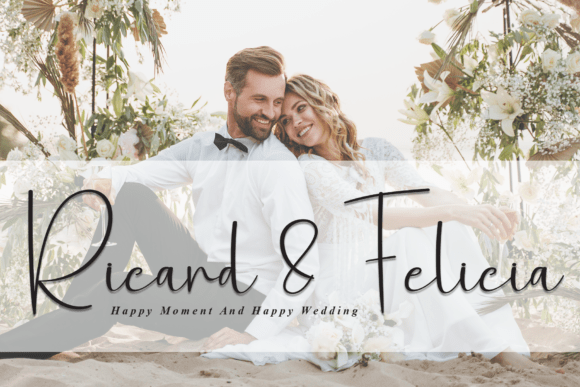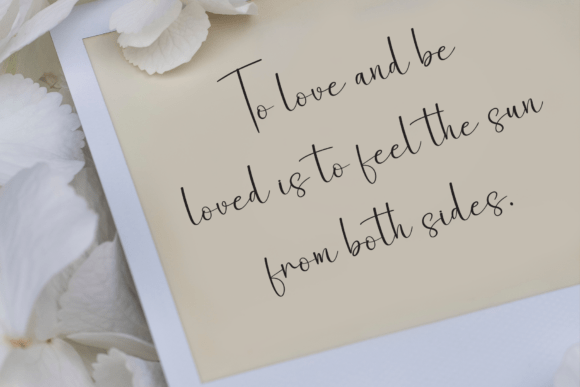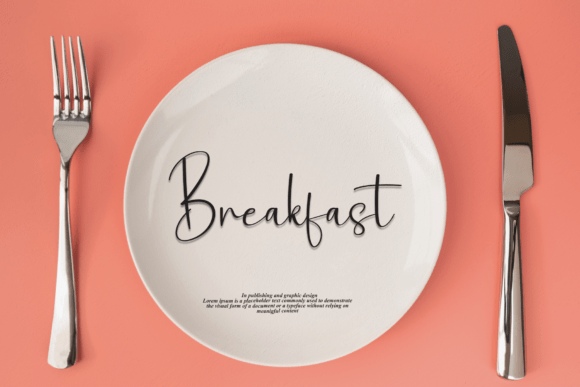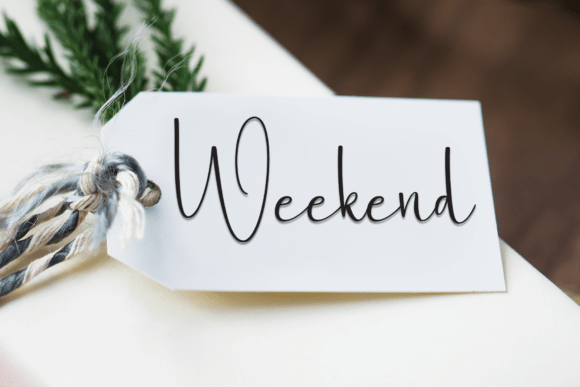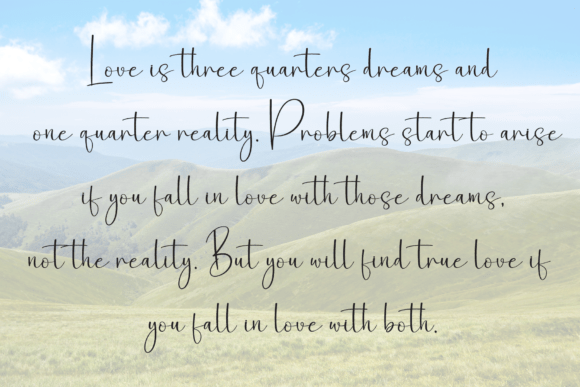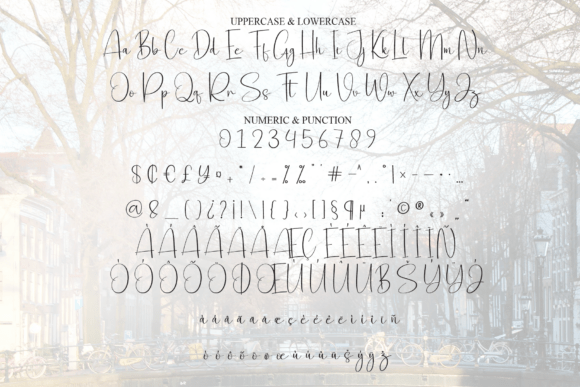
Introducing the Beautiful Amsterdam Font: Elevate Your Designs with Elegance and Charm
In the world of typography, few fonts capture the essence of elegance and sophistication as effortlessly as the Beautiful Amsterdam Font. This stunning script font is designed to bring a touch of refinement to any design, making it perfect for a variety of creative projects, from weddings and branding to social media and invitations.
A Font that Exudes Elegance and Charm
The Beautiful Amsterdam Font is characterized by its smooth curves and graceful swashes, which work in harmony to create a romantic, handwritten feel. Its elegant, flowing lines are reminiscent of traditional calligraphy, yet its modern charm makes it versatile enough to suit a wide range of design applications.
Whether you’re a designer looking to create a stunning logo or a crafty individual seeking to add a personal touch to your DIY projects, this font is sure to impress. Its unique blend of classic sophistication and modern flair makes it an excellent choice for anyone looking to elevate their text with a touch of luxury.
One of the key benefits of the Beautiful Amsterdam Font is its versatility. Its elegant design makes it suitable for a wide range of projects, including:
- Weddings: Use this font to create stunning wedding invitations, save-the-date cards, and ceremony programs that set the tone for a sophisticated and memorable event.
- Branding: Add a touch of elegance to your brand’s identity with a custom logo or typography that reflects your company’s values and personality.
- Social Media: Elevate your social media presence with eye-catching graphics and quotes that showcase your unique style and voice.
- Invitations: Create beautiful invitations for baby showers, birthday parties, and other special occasions that are sure to impress your guests.
What Makes the Beautiful Amsterdam Font So Special?
So, what sets the Beautiful Amsterdam Font apart from other script fonts on the market? Here are just a few features that make it a standout:
- Smooth Curves: The font’s smooth, flowing curves create a sense of elegance and sophistication that’s hard to find in other script fonts.
- Graceful Swashes: The font’s swashes add a touch of drama and flair to your text, making it perfect for headings, titles, and other design elements.
- Handwritten Feel: The Beautiful Amsterdam Font has a distinctly handwritten feel that adds a personal touch to your designs.
- Romantic Charm: The font’s romantic charm makes it perfect for projects that require a touch of whimsy and elegance.
In conclusion, the Beautiful Amsterdam Font is a stunning script font that brings a touch of elegance and sophistication to any design. Its smooth curves, graceful swashes, and handwritten feel make it perfect for a variety of creative projects, from weddings and branding to social media and invitations. Whether you’re a designer or a crafty individual, this font is sure to impress. So why wait? Download the Beautiful Amsterdam Font today and elevate your designs with a touch of luxury!